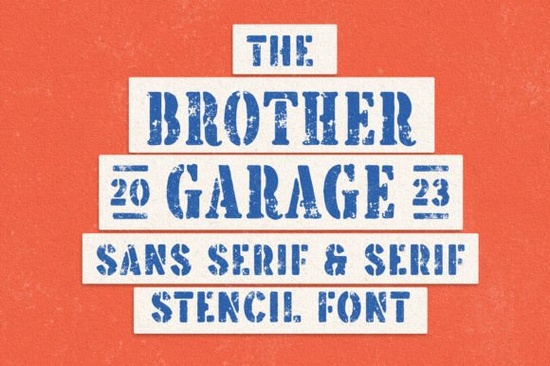
If you’ve been searching for a typeface that feels like it rolled straight out of a vintage motorcycle workshop, the Brother Garage Font might be exactly what your next project needs. It’s not just another display font it’s built with texture, grit, and character that fits perfectly on posters, apparel, logos, or even packaging for small businesses with a retro edge. Whether you’re designing merch for a local bike rally or branding a coffee shop with industrial charm, this font brings authenticity without needing extra filters or effects.
What makes Brother Garage different from other stencil fonts?
Most stencil-style fonts lean heavily into military or construction themes. Brother Garage, on the other hand, pulls inspiration from grease-stained garage walls, weathered metal signs, and the raw energy of motorcycle culture. You get three distinct variations:
- Regular – clean but still rugged, great for headlines that need to stay readable
- Rough – adds subtle texture and imperfections, perfect for vintage posters or distressed apparel
- Stamp – mimics inked rubber stamps, ideal for labels, tags, or packaging
This flexibility means you can mix and match styles within the same design say, using the stamp version for a “hand-stamped” logo tagline while keeping the main title in rough for contrast.
What else comes with the download?
Besides the three font styles, you’ll also get 13 bonus illustrations think wrenches, helmets, gas cans, and engine parts all styled to match the font’s aesthetic. These aren’t clipart afterthoughts; they’re detailed, vector-ready assets that pair naturally with your typography. Use them as standalone graphics, background elements, or even as part of a badge or emblem alongside your text.
If you’re working on a themed collection maybe a Father’s Day line or a biker café menu these illustrations save time and keep your visuals cohesive.
How does it compare to similar fonts like Bigland Retro or Punk Cyber?
It depends on the vibe you’re going for. Bigland Retro leans more into 70s Americana with rounded edges and bold curves, while Punk Cyber is all glitchy, high-energy, and neon-lit. Brother Garage sits somewhere in between not too polished, not too chaotic. It’s grounded, mechanical, and nostalgic without being kitschy.
If you liked the structured feel of University but want something less collegiate and more blue-collar, this is a solid alternative. And if you’re already a fan of textured handwriting styles like Daily Magnolines, you might enjoy pairing Brother Garage’s bold caps with softer script accents for contrast.
Any tips for getting the most out of this font?
Here are a few practical ideas:
- Layer textures. Even though the Rough style has built-in grit, overlaying a subtle paper or concrete texture in your design software can deepen the vintage effect.
- Use sparingly. This isn’t a body text font it shines in headlines, logos, or short phrases. Pair it with a simple sans-serif (like Helvetica or Montserrat) for balance.
- Play with color. Try rust orange, oil black, or faded denim blue to enhance the garage theme. Avoid overly bright or pastel tones unless you’re intentionally going for irony.